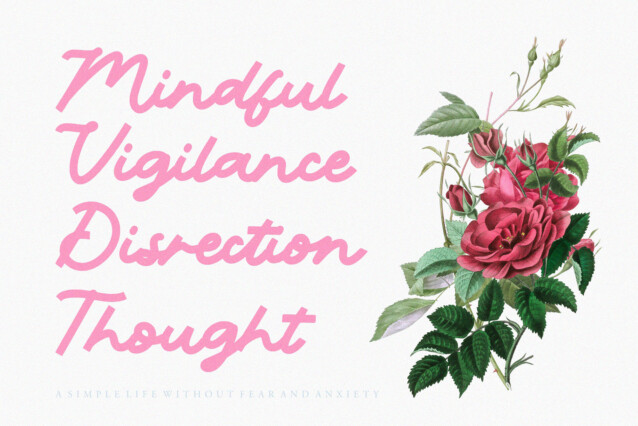
NCL Riveqesik Font
NCL Riveqesik Font is a casual handwritten monoline script font. Masterfully designed to become a true favorite, this font has the potential to bring each of your creative ideas to the highest level! It was purposely crafted to be used in large point sizes, although it doesn’t lose its magic in small point sizes. It is perfect for headline, digital ads, magazines, website, poster, branding, and logos. No matter the topic, this font will be an incredible asset to your fonts’ library, as it has the potential to elevate any creation. With this beautiful font, absolutely you can make your project stand out from the rest.
FEATURES
• 361 Unique Glyphs
• 14 Ligature
• Uppercase & Lowercase
• Numeral, Punctuation & Symbols
• Multilingual Support